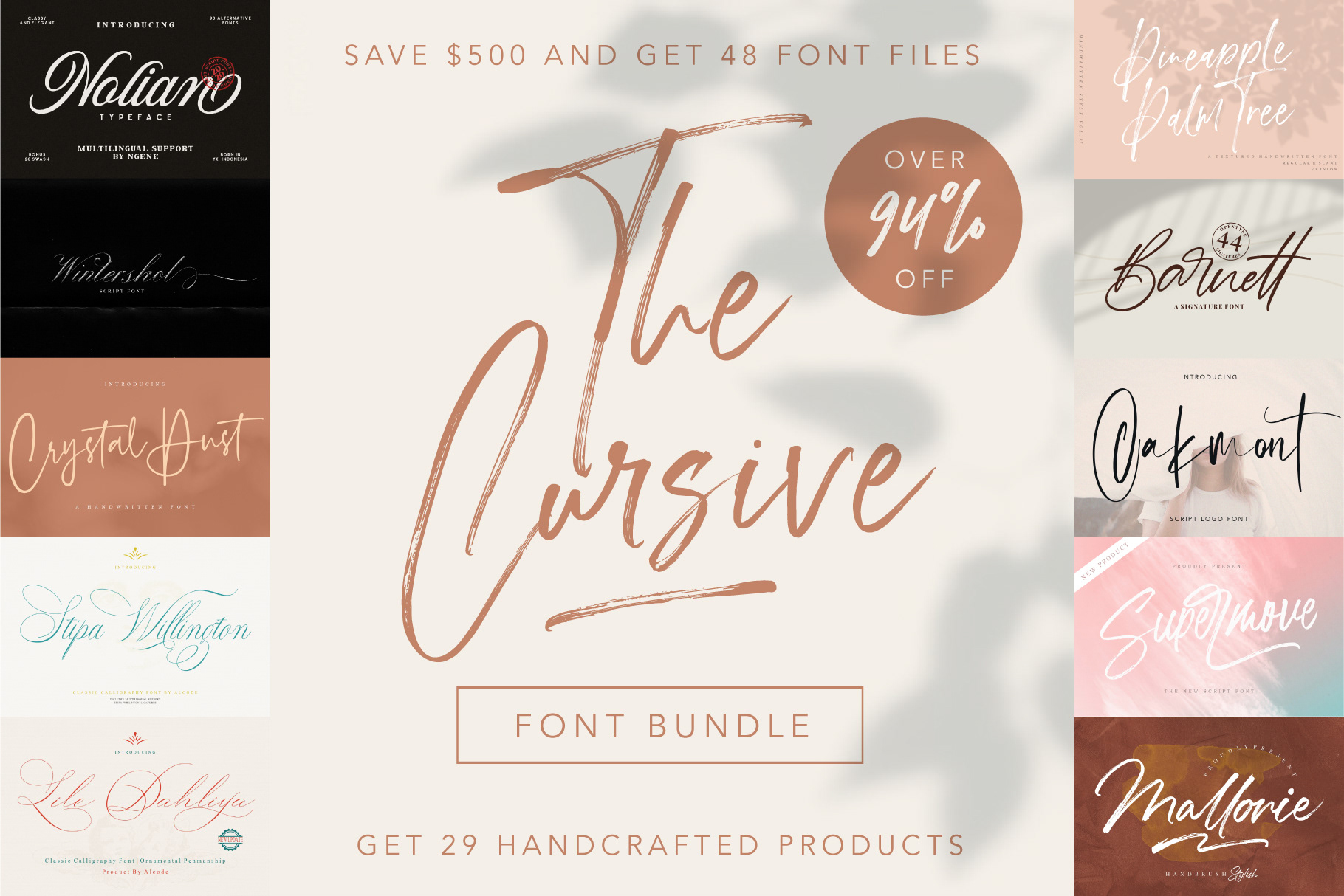
THE CURSIVE FONT BUNDLE - SAVE 94%
Introducing The Cursive Font Bundle - featuring 29 beautifully hand crafted products. This deal is the perfect mix of modern & vintage, featuring a large selection of fun signature style monoline & brush fonts, as well as several more formal vintage calligraphy style fonts. Have fun using all the alternates, ligatures & swashes included with these items to create your own unique handwritten designs. Pick up this pack while you can at over 94% off retail for a very limited time only! (Expires January 15, 2021)